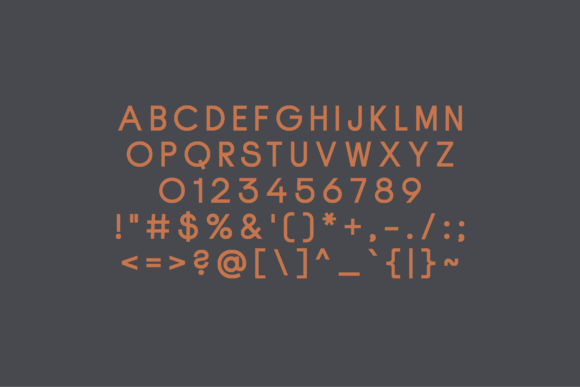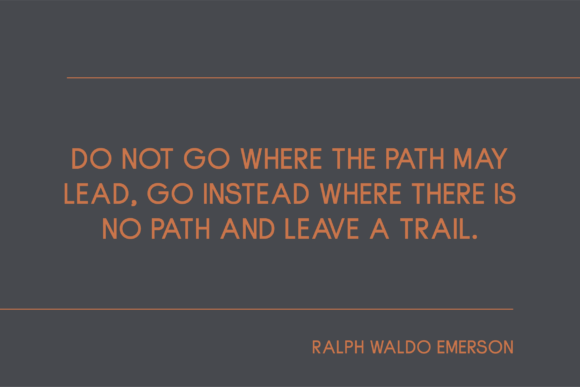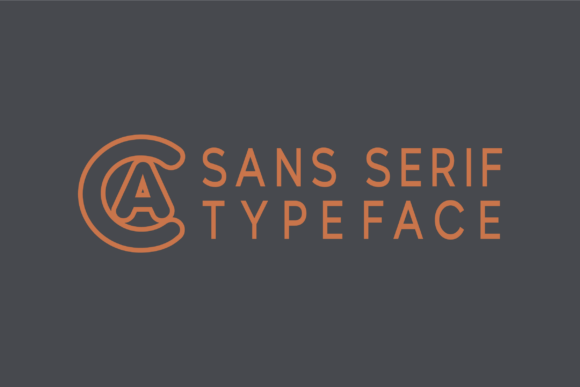
Introduction to Hornes Font
Have you ever stared at a blank canvas, waiting for that perfect font to spark your creative project? I’m sure many designers can relate to this moment. It’s like searching for the missing piece of a puzzle that will bring your design to life. That’s exactly what happened when I stumbled upon the Hornes Font – a modern, classy sans serif typeface that immediately caught my attention.
With its clean lines and sleek design, Hornes Font is an ideal choice for designers who want to add a touch of elegance to their work. Whether you’re working on a logo, wedding invitation, or advertisement, this versatile font is sure to impress. And the best part? It’s available for free download, making it an accessible design resource for creatives of all levels.
What sets Hornes Font apart from other fonts is its high-quality design, perfect for use on both transparent backgrounds and print materials. Its extensive character set includes upper characters, numbers 0-9, and a range of punctuation and symbols, making it a valuable asset for any designer’s toolkit.
Key Features of Hornes Font
- High-quality, professional font suitable for creative projects and designs
- Includes a comprehensive character set, covering Latin and Cyrillic alphabets, making it suitable for multilingual designs
Honest Review: Hornes Font
Hornes Font has been a game-changer for my creative projects, offering a unique and stylish touch that elevates my designs to the next level. I was impressed by its versatility and ease of use, making it an ideal design resource for various projects.
Here are some aspects that I particularly like about Hornes Font:
- ✨ High Quality – The font is crisp, clear, and has a smooth texture, making it perfect for both digital and print designs.
However, there are a few limitations that I’ve encountered:
- ⚠️ Limited Character Set – Hornes Font has a limited character set, which can be a problem for designers who need to use a wide range of characters in their projects.
- ⚠️ Not Suitable for All Designs – The font’s style may not be suitable for all types of projects, such as formal or traditional designs.
Overall, I’m impressed with Hornes Font and would highly recommend it to designers who are looking for a unique and high-quality font for their creative projects.
Hornes Font
Hornes Font is a high-quality, free download design resource ideal for creative projects that require a unique and eye-catching aesthetic. With its transparent background, this font is perfect for adding a touch of elegance to your designs.
Tips for Getting the Most Out of Hornes Font
Here are some tips to help you get the most out of Hornes Font:
- Experiment with different font sizes and styles to achieve the desired look.
- Combine Hornes Font with other design elements to create a visually appealing design.
- Use the font in conjunction with a transparent background to create a modern and sleek look.
Hornes Font is suitable for a variety of creative projects, including:
- Branding and logo design.
- Infographics and data visualizations.
- Web design and development.
- Print materials and marketing materials.
Is Hornes Font suitable for high-quality design projects?
Hornes Font is designed to be a high-quality font, suitable for a wide range of creative projects, from print materials to digital interfaces. Its clean and modern design makes it an excellent choice for branding, advertising, and other design projects where a professional look is required. However, as with any font, the quality of the final result will also depend on the skill level of the designer and the specific design context.